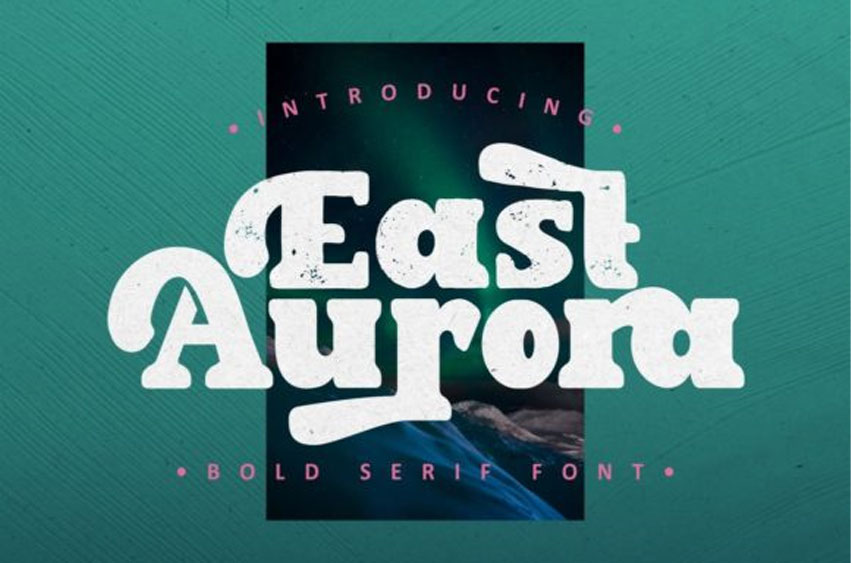
East Aurora Font
East Aurora Font is a bold, stylistic and cool serif font. This font is PUA encoded which means you can access all glyphs and swashes with ease!
Use this font for your designs and explore its endless possibilities.